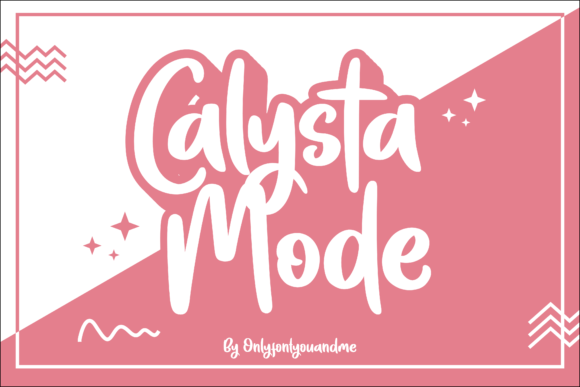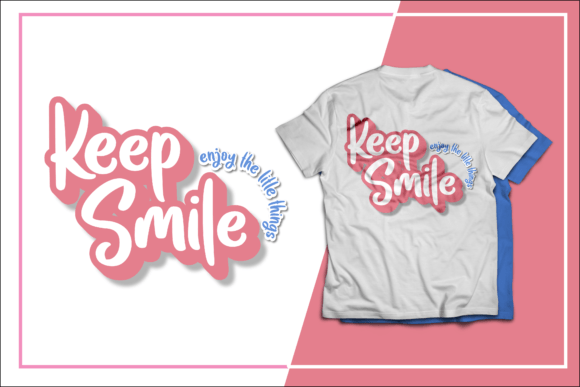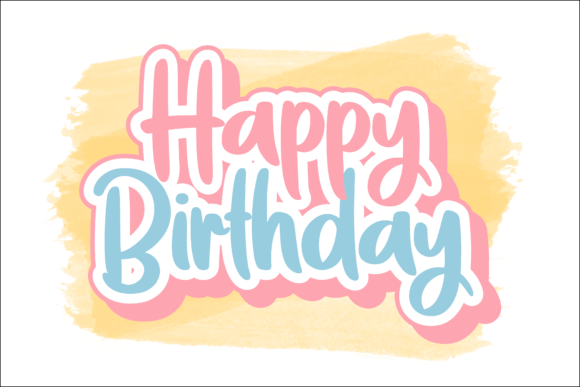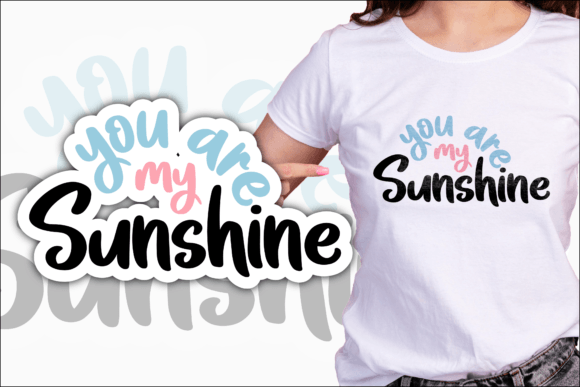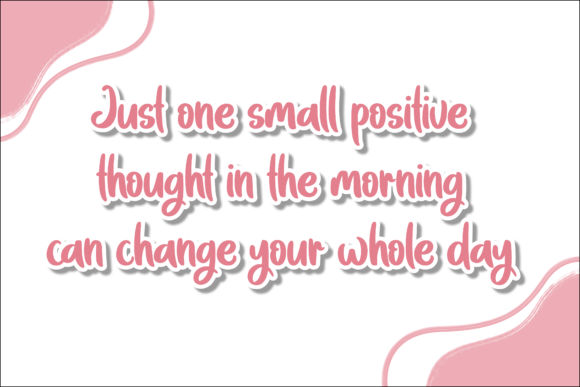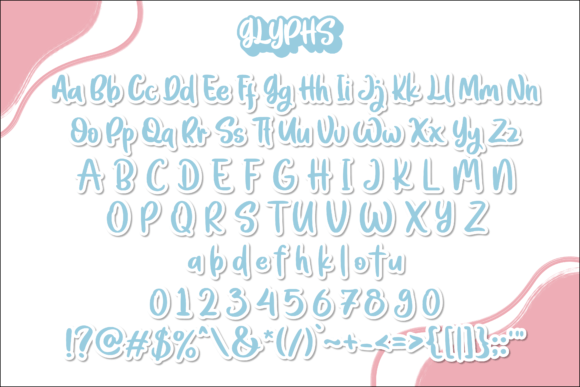
What Is Calysta Mode Font?
Calysta Mode Font is a cute and friendly handwritten script that adds warmth to any project. It features smooth curves and simple lines that make your designs feel personal and inviting. Because of its playful look, this font is ideal for projects that need a sweet and happy touch.
You can rely on its clean shapes to make your text clear and easy to read.
Calysta Mode works well in many creative situations. For example, you can use it on T-shirts and mugs to add a handmade feel. It also looks beautiful on Valentine’s Day cards or love notes.
In addition, this font is great for doormats, signs, and craft projects. You will see that your work feels more joyful when you use this style.
Also, Calysta Mode shines in social media graphics and blog headers. Your posts will stand out with a warm, casual vibe.
Why Should You Choose Calysta Mode Font?
One reason to choose Calysta Mode is its versatility. The font keeps its charm whether you use it for big headlines or small labels. Because it has smooth strokes and even spacing, every word stays clear.
It pairs well with clean serif or sans-serif fonts. This makes it easy to build balanced layouts for many styles.
Designers love that this font saves time. It looks polished straight out of the box.
Calysta Mode Font brings a personal and friendly mood to any project. For example, if you want your designs to feel warm and welcoming, this font helps you achieve that easily.
Even simple layouts look more fun and lively when you choose this style. Whether you are making a shirt, a card, or a logo, Calysta Mode will improve your project.
In addition, using a handwritten font shows you care about small details. This helps you build trust with clients and makes your work stand out.
Calysta Mode Font is more than just a typeface. It is a design tool that adds charm and joy to every project. From crafts and gifts to digital content and branding, this font adapts easily and leaves a warm impression.